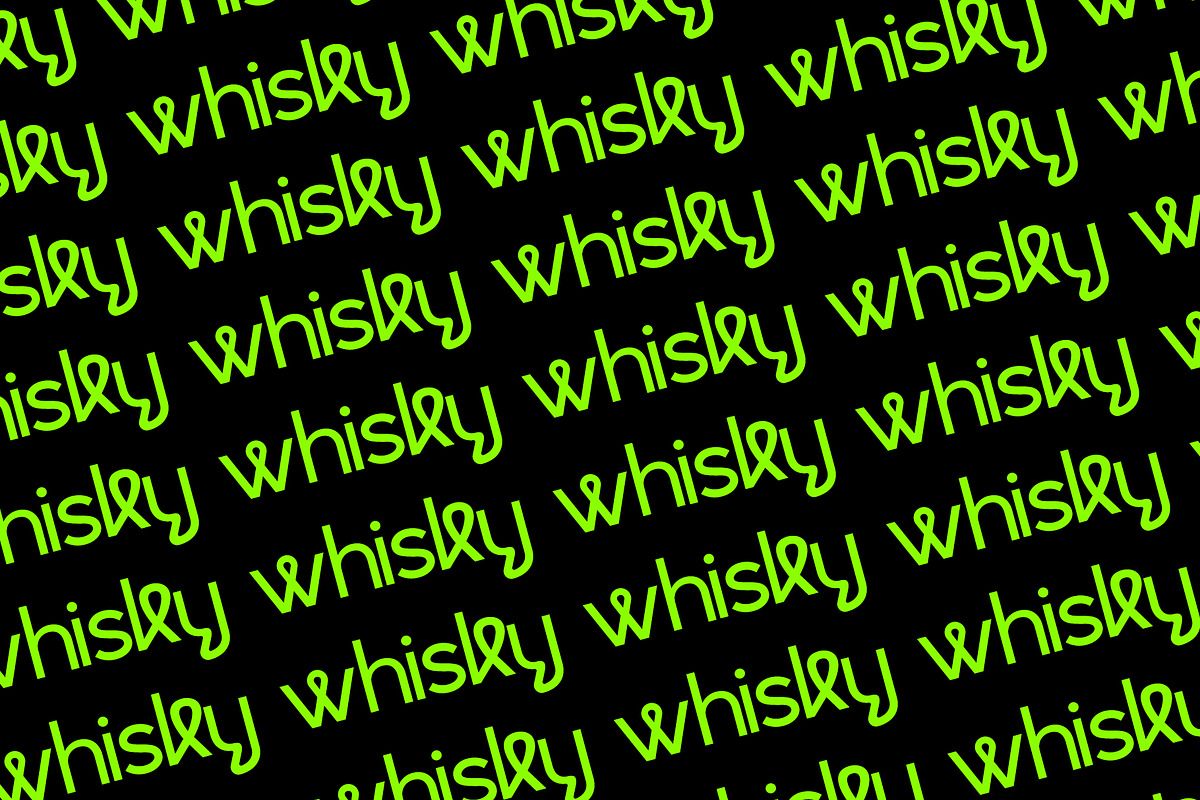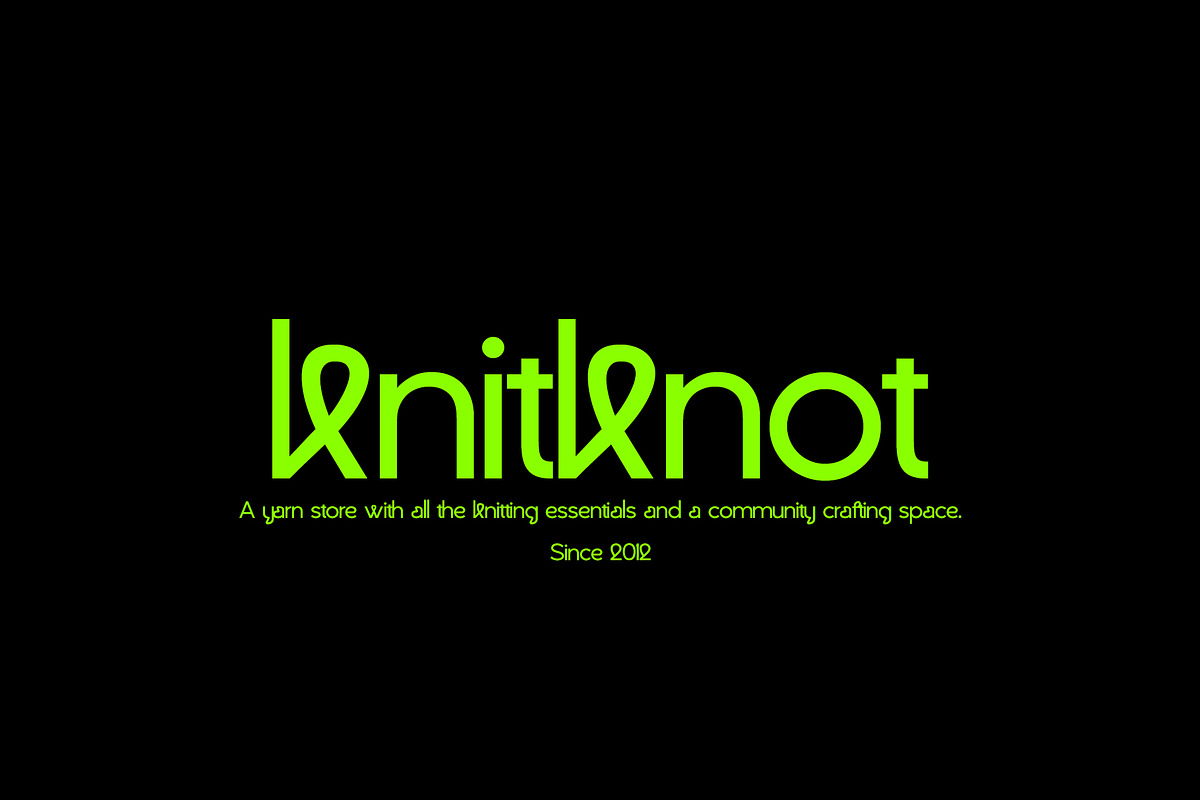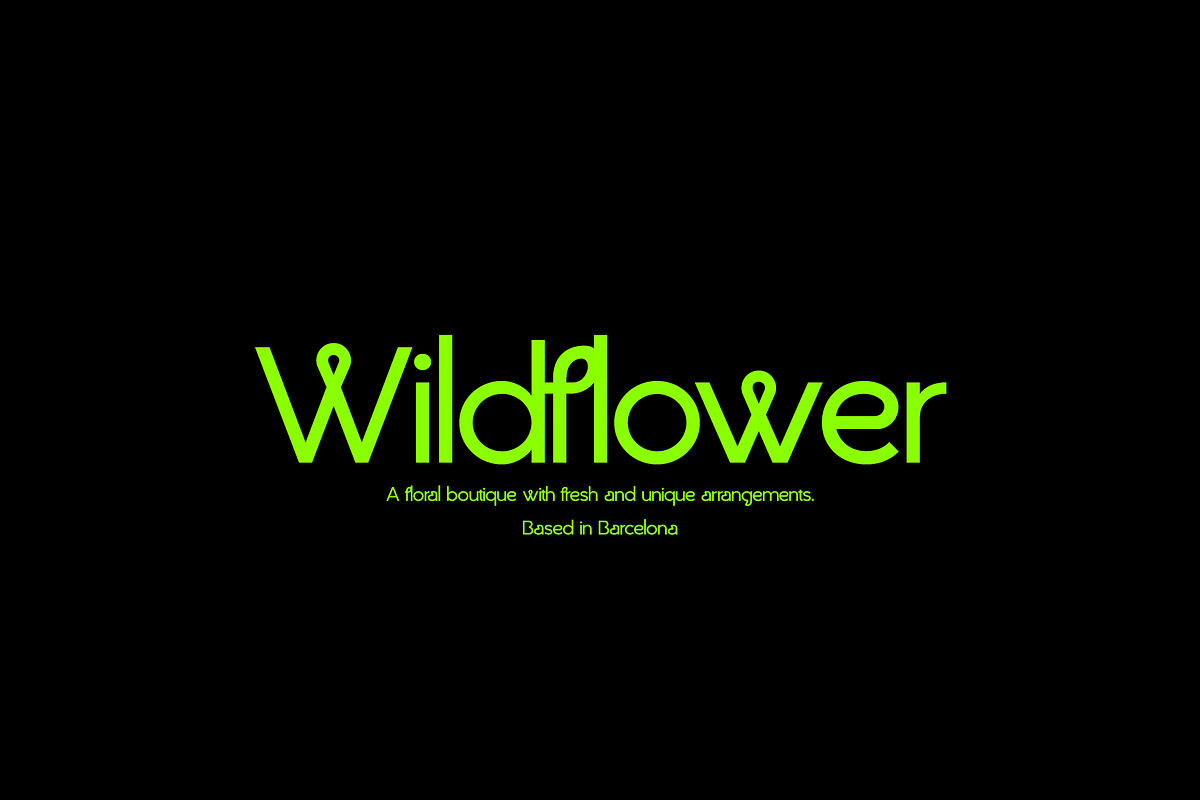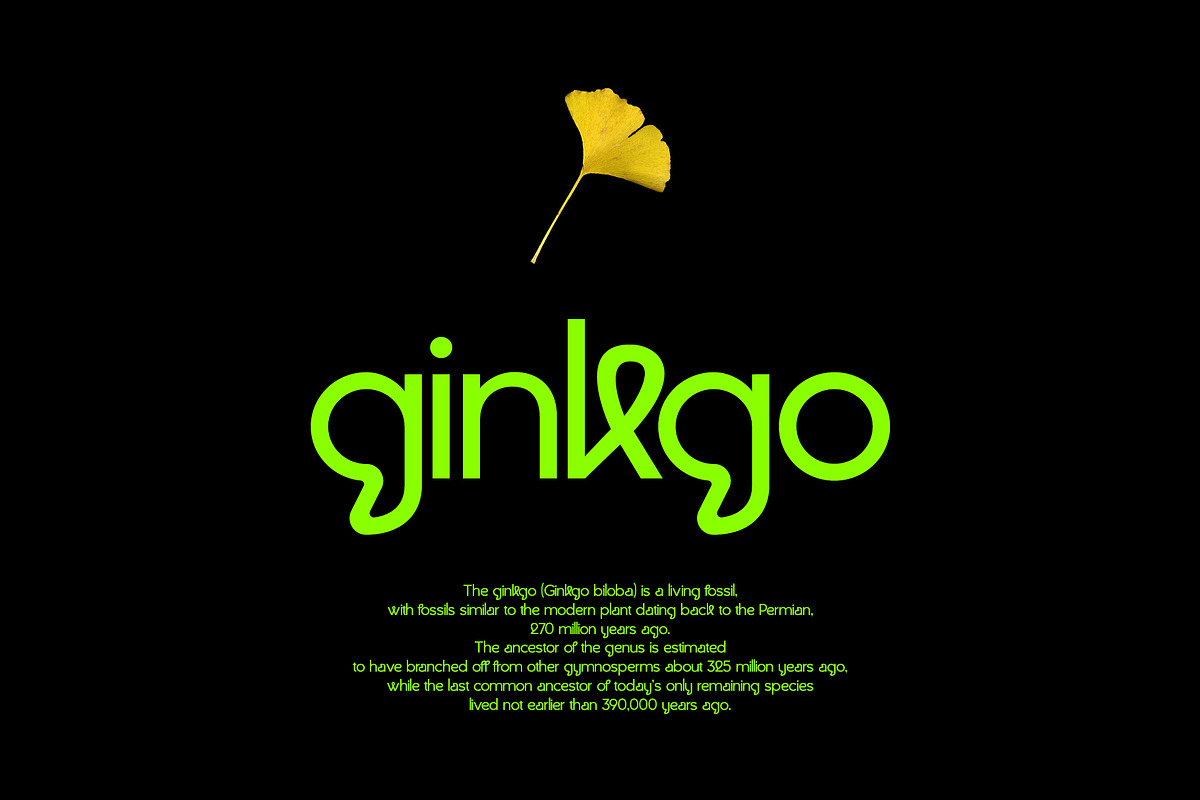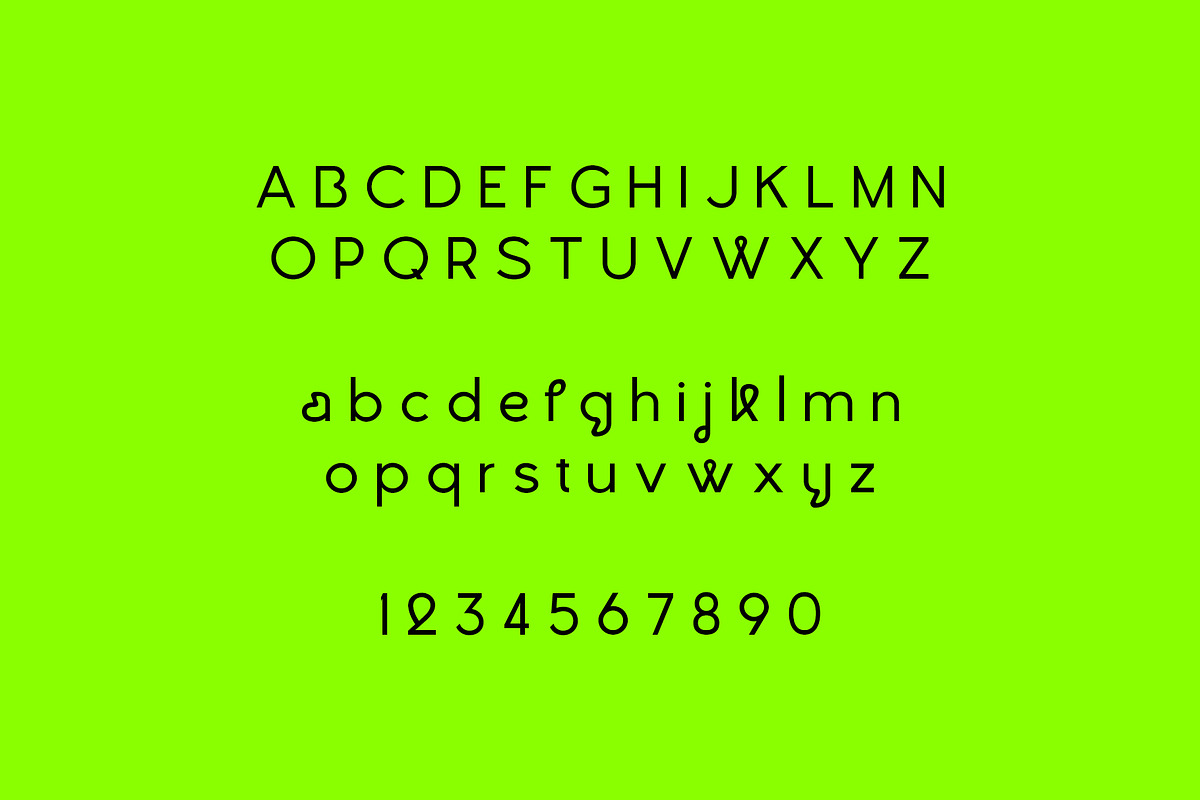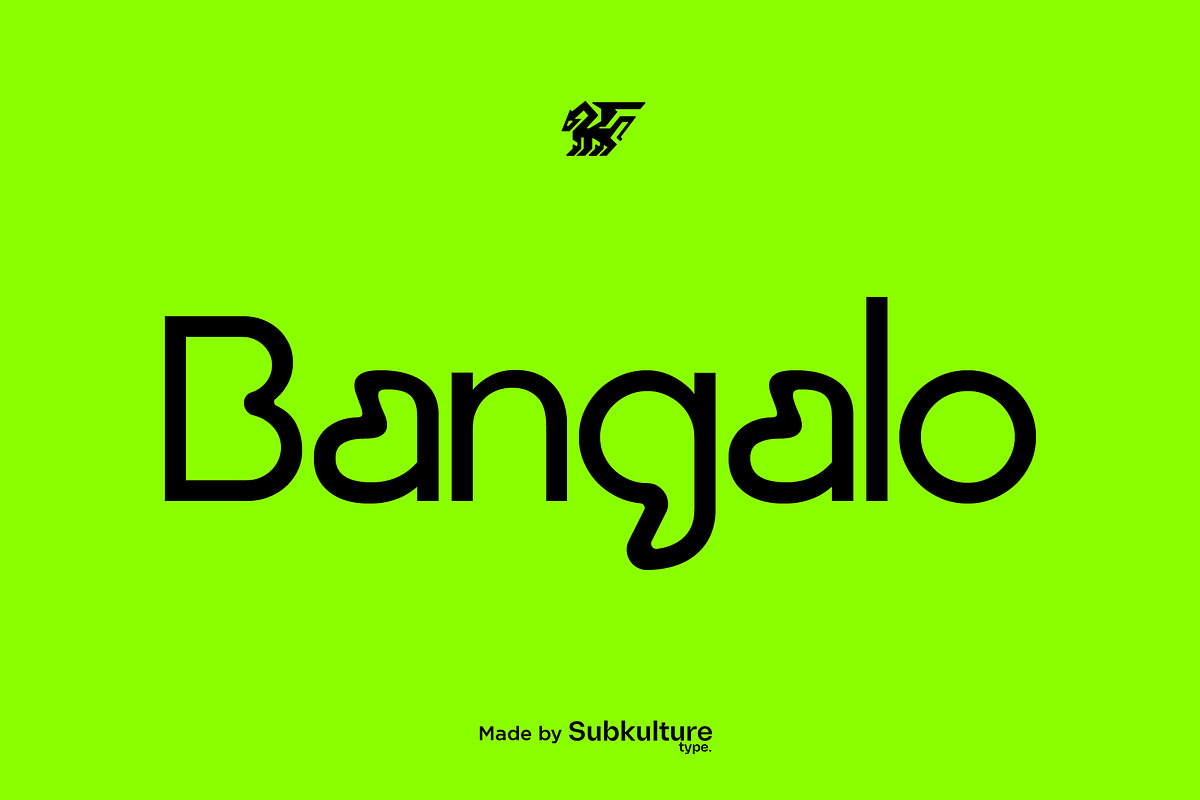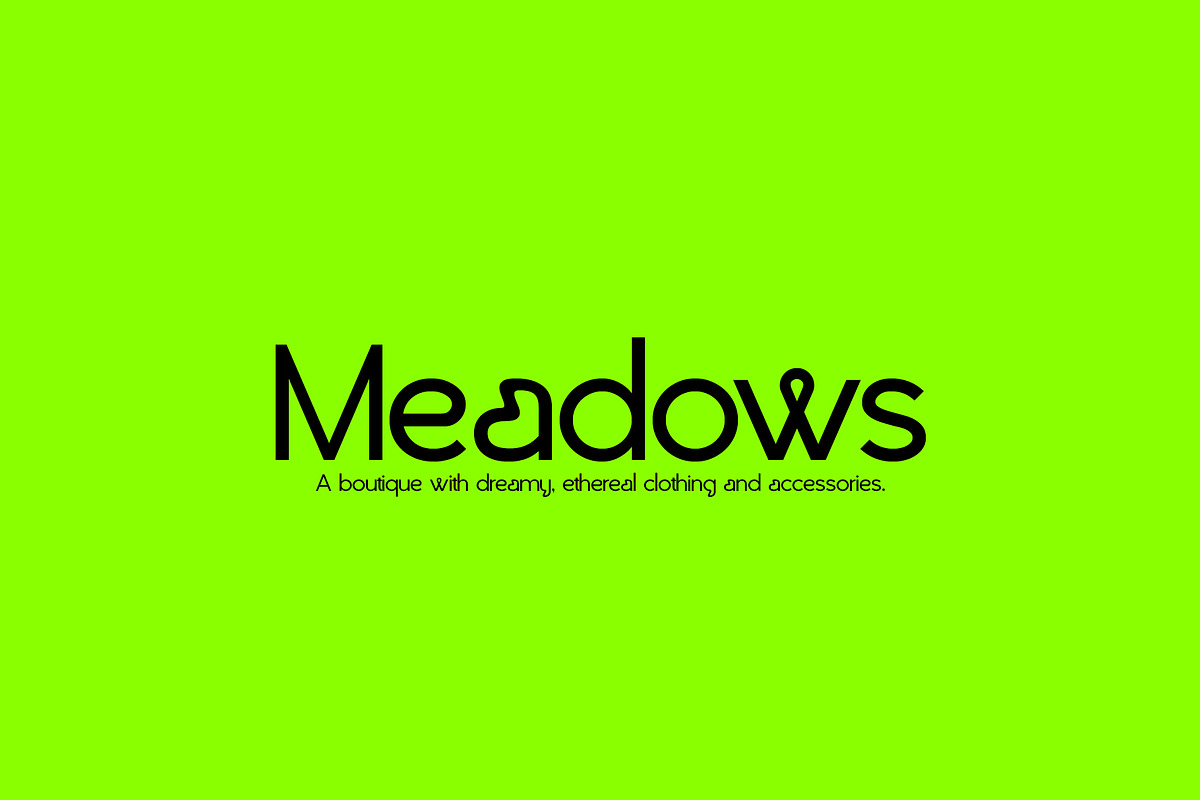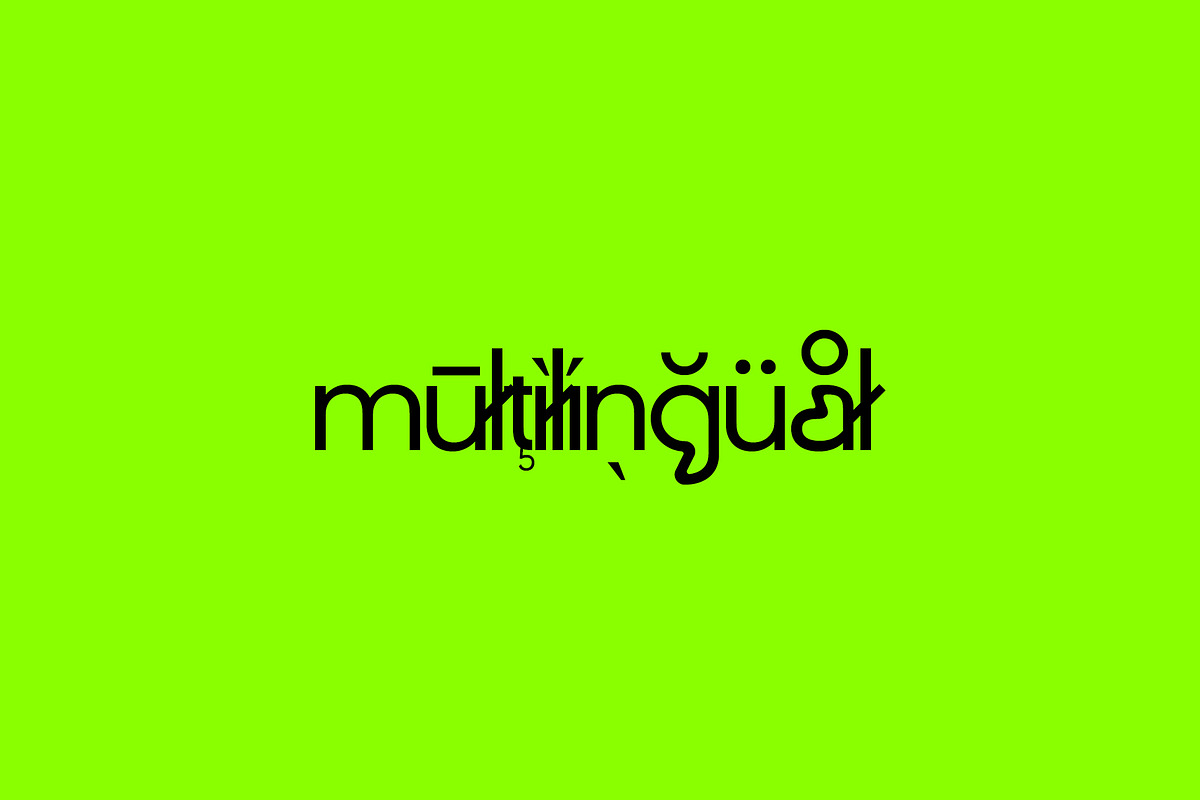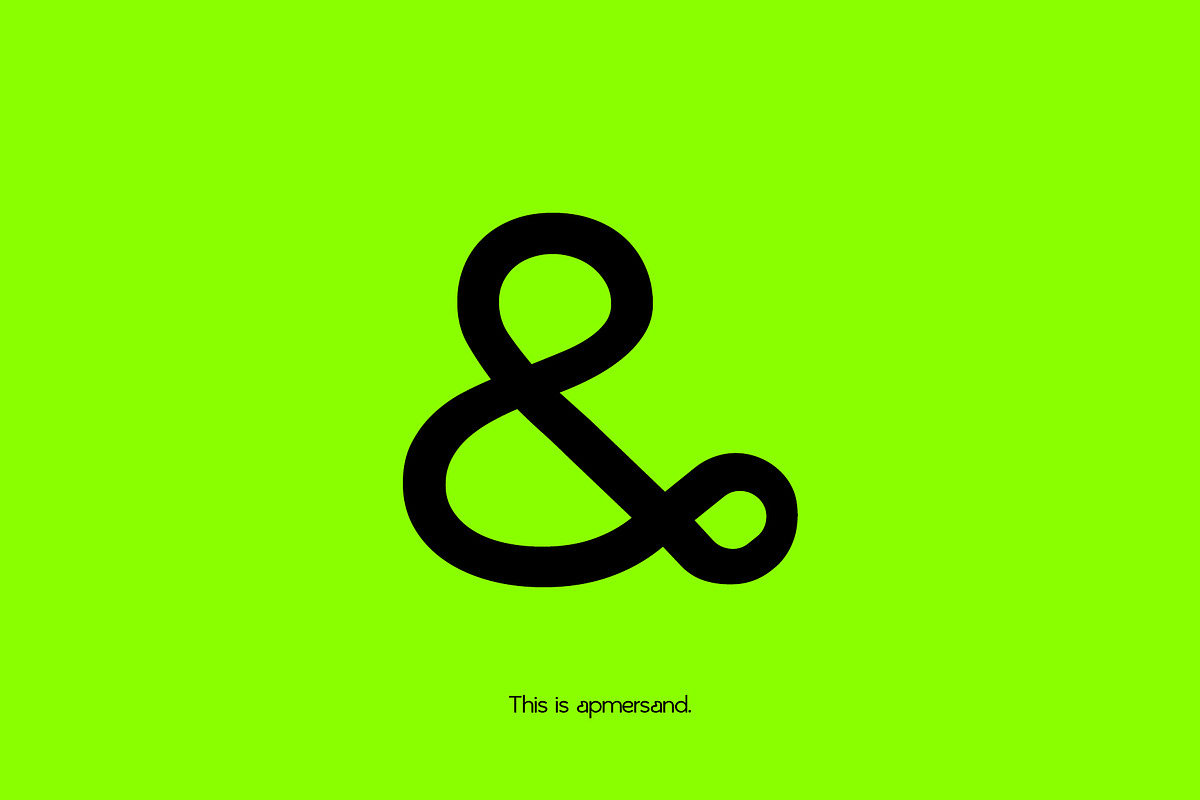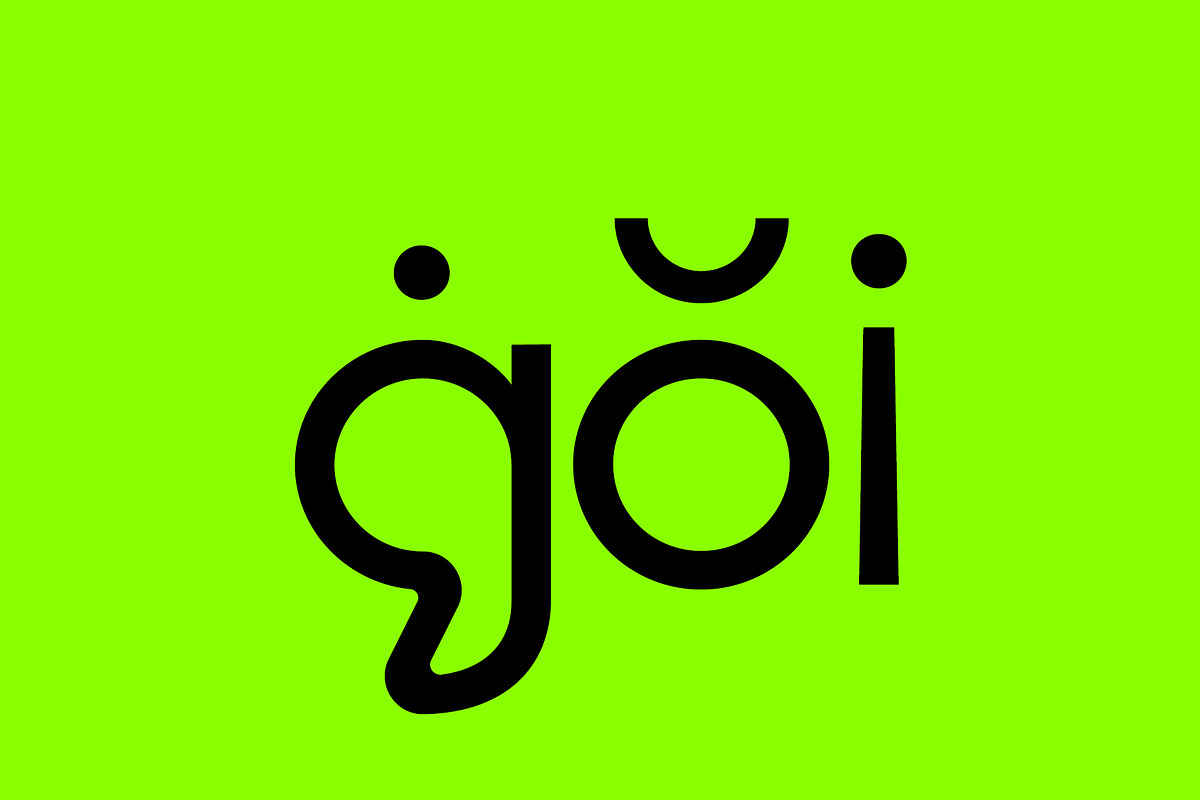
Bangalo - Modern & Unique Sans Serif
Bangalo is a stylish, modern sans serif typeface that stands out with its clean lines, geometric shapes, and unique character design. It offers a sleek, contemporary look that's perfect for branding, editorial layouts, logos, and digital interfaces. With its balance of simplicity and distinctive flair, Bangalo adds a professional yet creative touch to any project.
Bangalo features uppercase & lowercase letters, numbers & symbols, multilingual support, over 250+ glyphs.